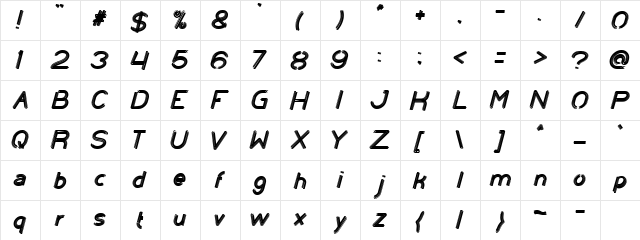
XTRAPOWER Regular
Design Context for XTRAPOWER Typeface
XTRAPOWER has the bold swagger of sports branding: strong, assertive letterforms designed to dominate headlines and jerseys alike.
A natural choice for gym brands, fantasy sports, jersey lettering, and action-driven headlines.
Pro Tip: Use XTRAPOWER in all-caps headlines where its athletic energy can fully express itself. Pair with a solid, simple sans for supporting text.